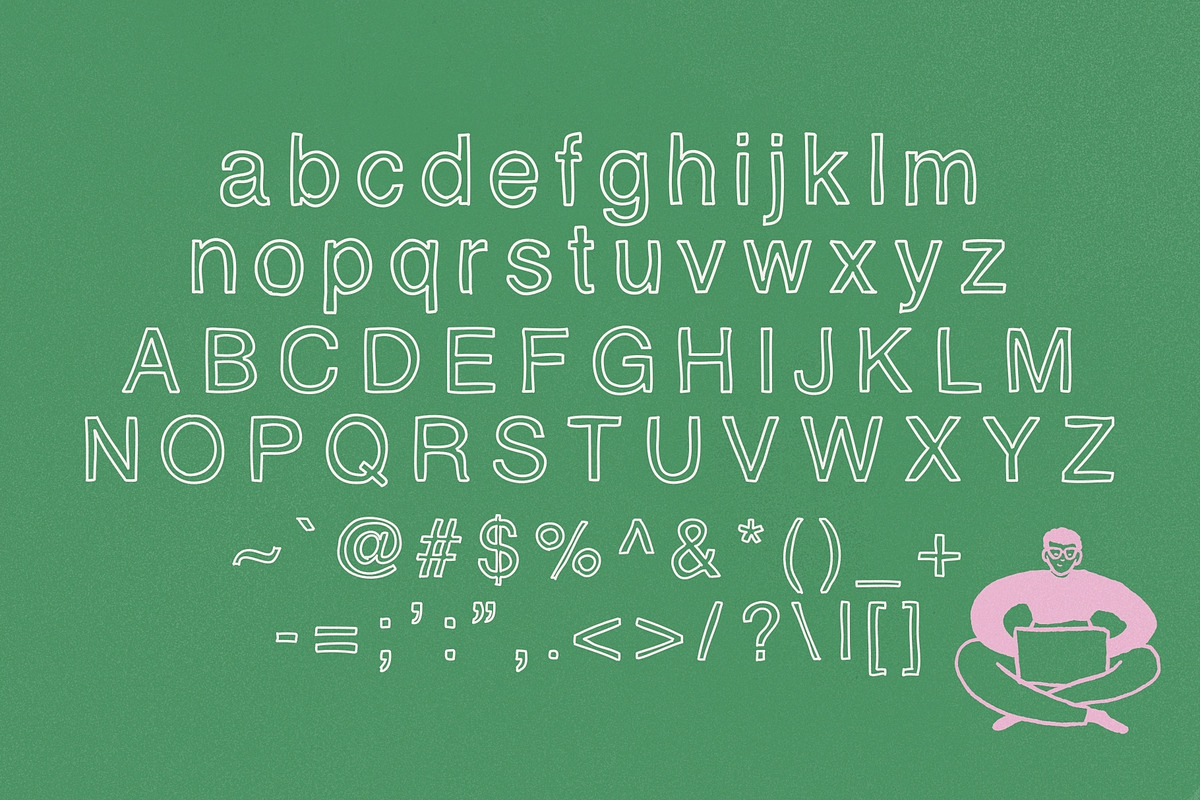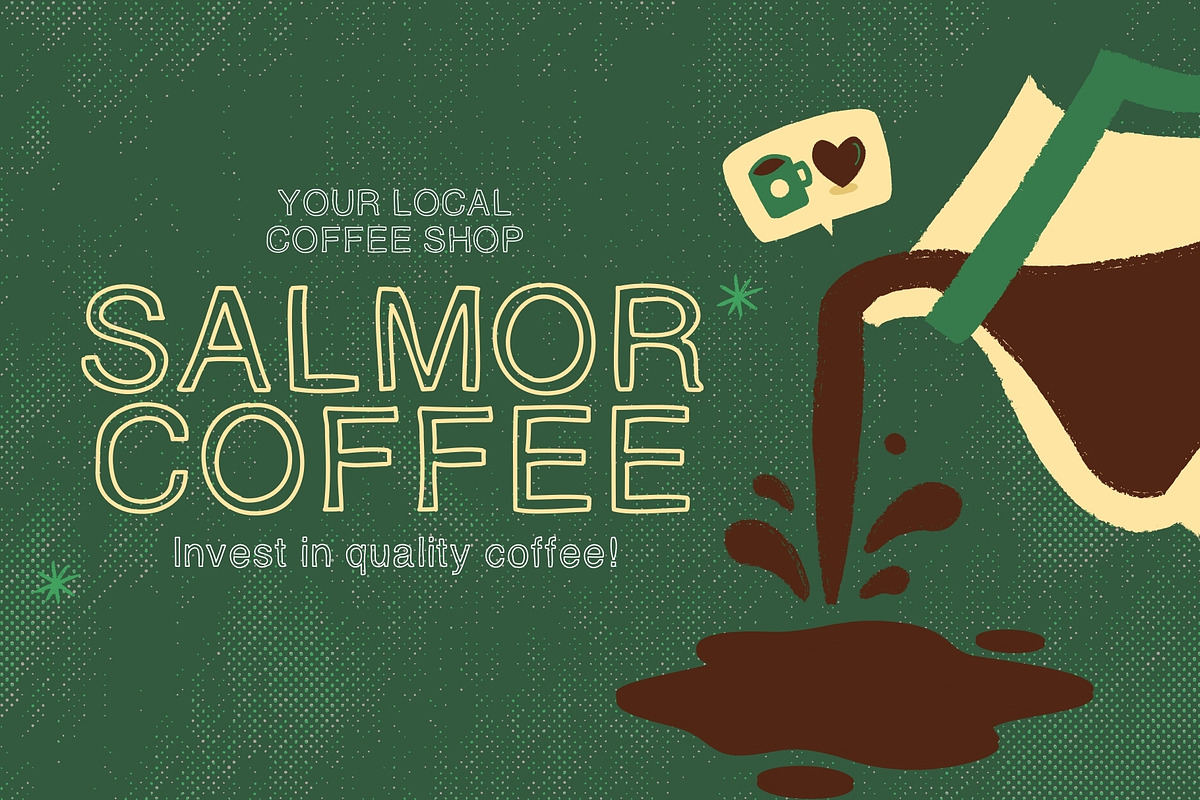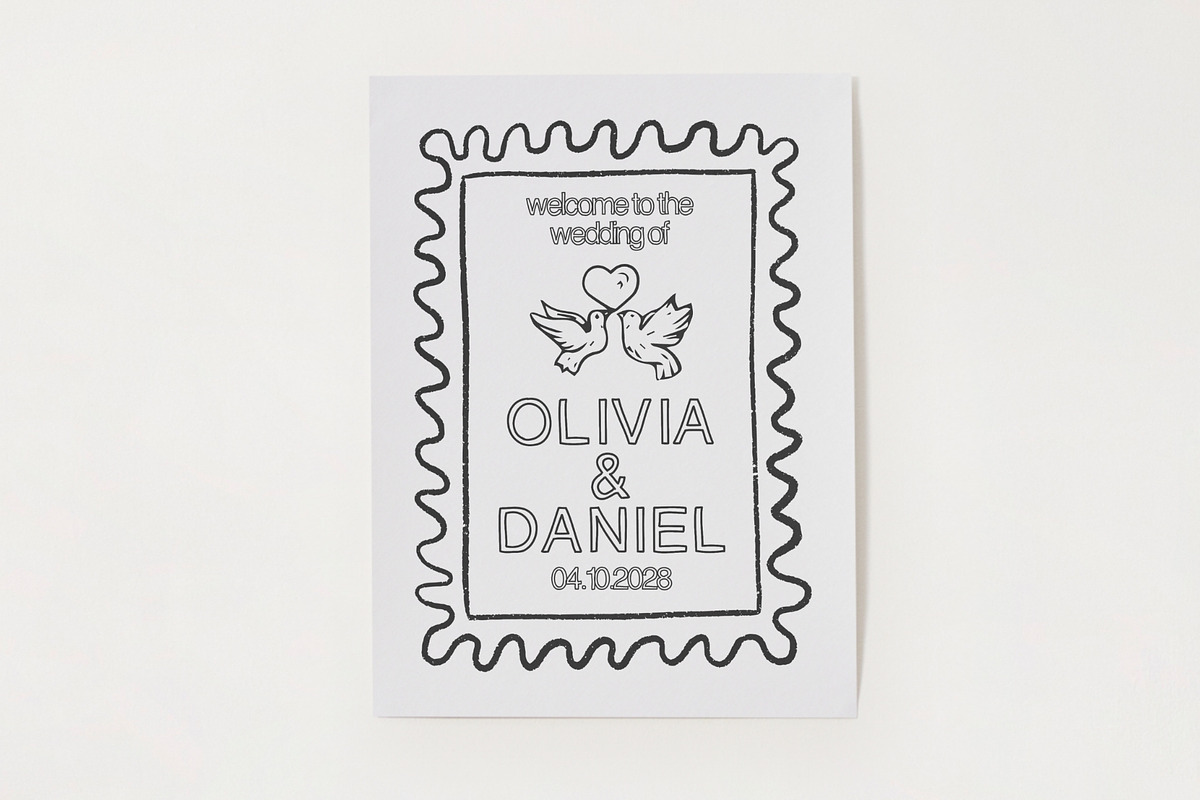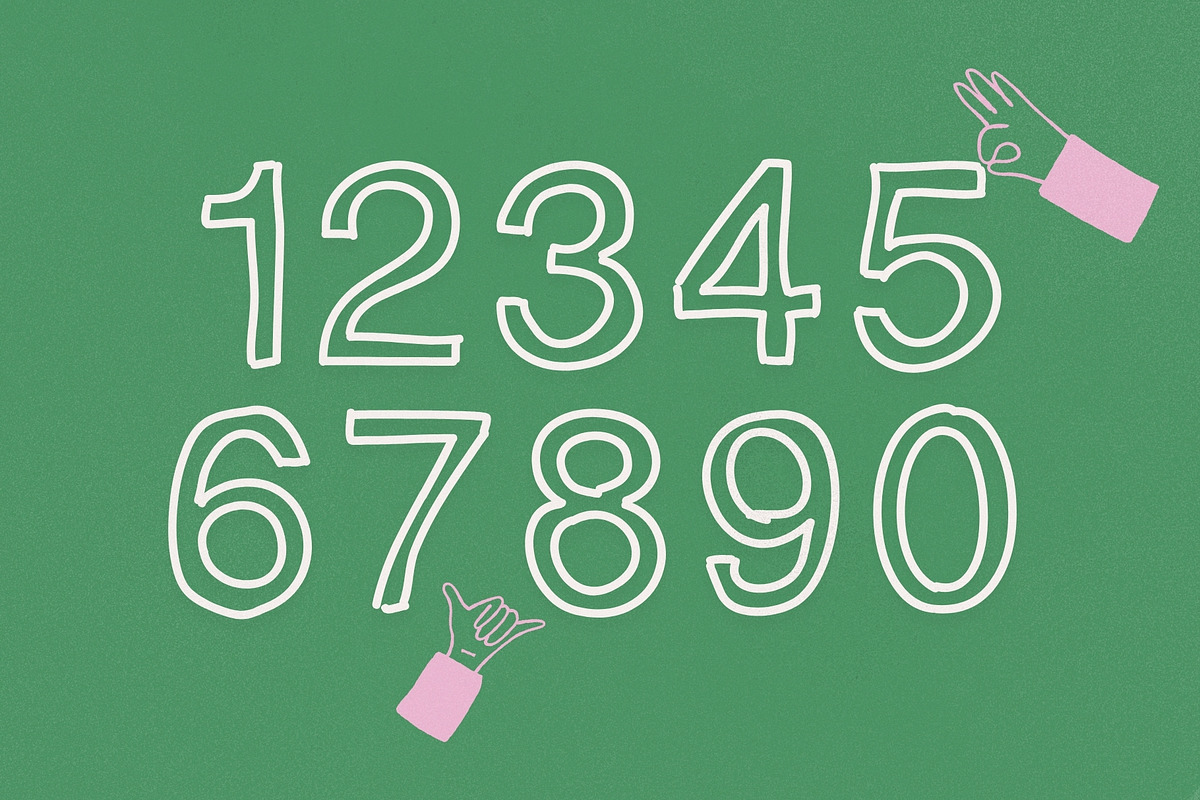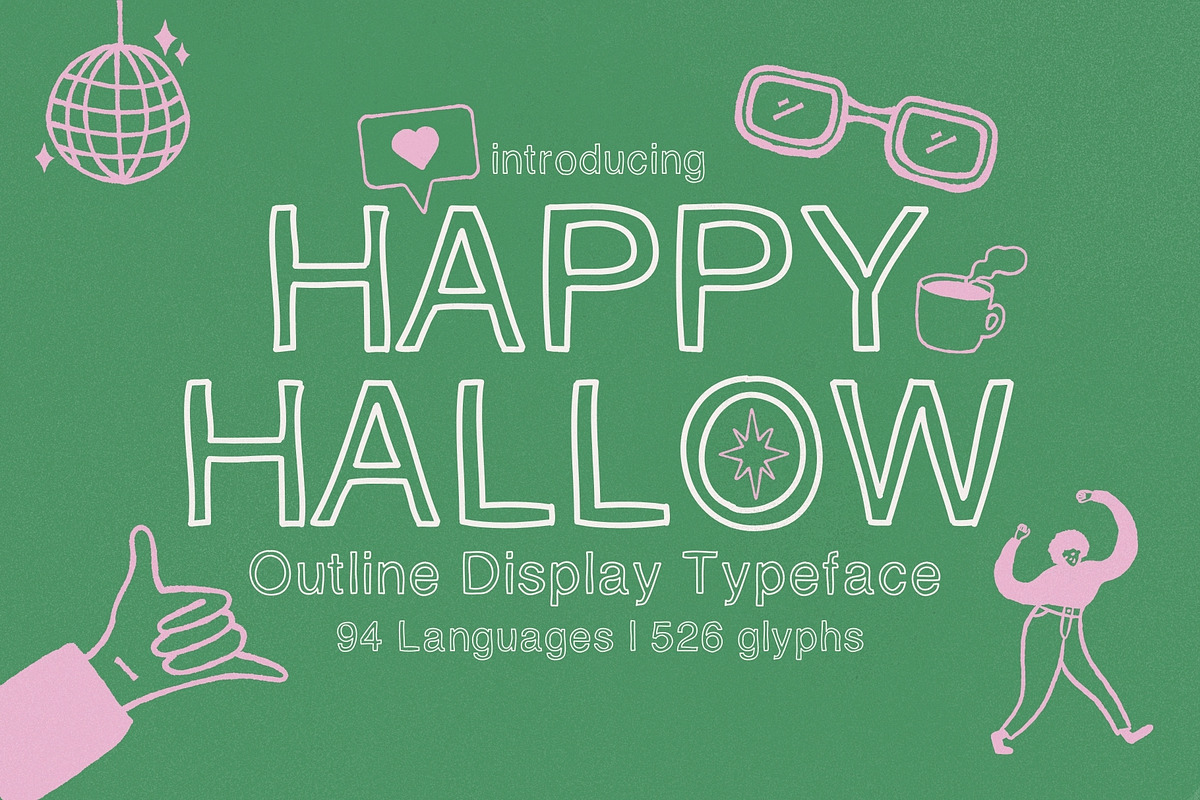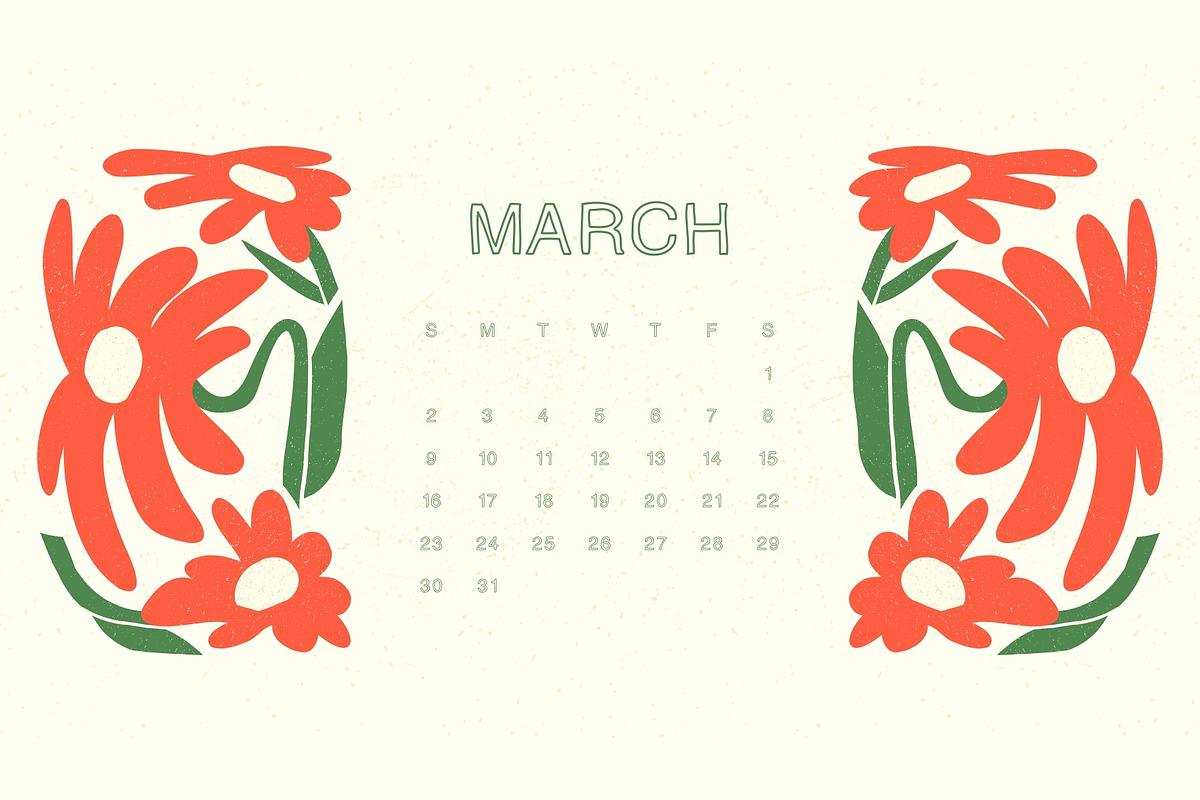
Happy Hallow - Outline Display Type
Say hello to Happy Hallow, a lively hand-drawn outline typeface bursting with personality, charm, and youthful energy. Designed to celebrate the beauty of imperfection, this playful display font embraces organic strokes and uneven details that give every letter a warm, authentic human feel.
Unlike rigid digital typography, Happy Hallow feels spontaneous and expressive — as if each letter was carefully sketched by hand. Its imperfect outlines and playful rhythm create a joyful visual tone that instantly brings designs to life. The result is a font that feels approachable, creative, and full of character.
Happy Hallow is perfect for designers who want typography that feels natural, friendly, and expressive. Whether used for bold headlines or fun creative layouts, its hand-crafted style adds an unmistakable sense of warmth and personality.
With 526 glyphs and support for 94 languages, Happy Hallow provides extensive typographic flexibility while maintaining its distinctive hand-drawn charm.